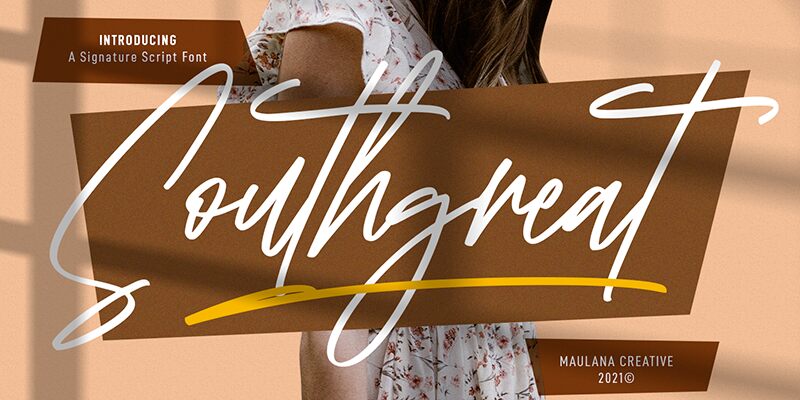
South Great
South Great is a beautiful narrow signature font designed by Maulana Creative. Perfect for crafting eye-catching logos, stylish invitations, or elegant social media posts, South Great's light weight and unique style will make your creations truly stand out.